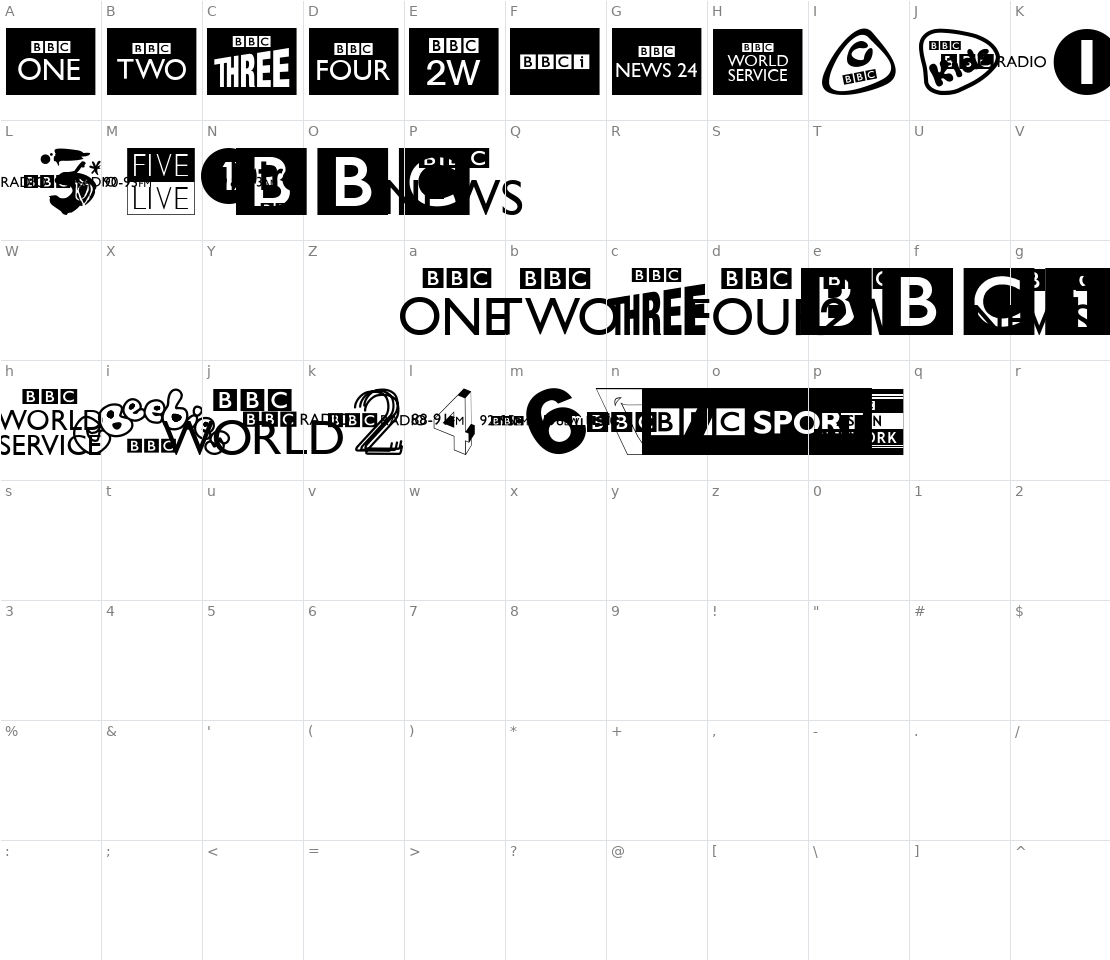
BBC logos
by mtda for The TV Room
BBC logos is a novelty font from mtda for The TV Room that recreates various BBC logo designs as typeable characters. It's less a traditional typeface and more a reference set of broadcast branding marks, useful for design mockups, media history projects, or anyone documenting the evolution of the BBC's visual identity.